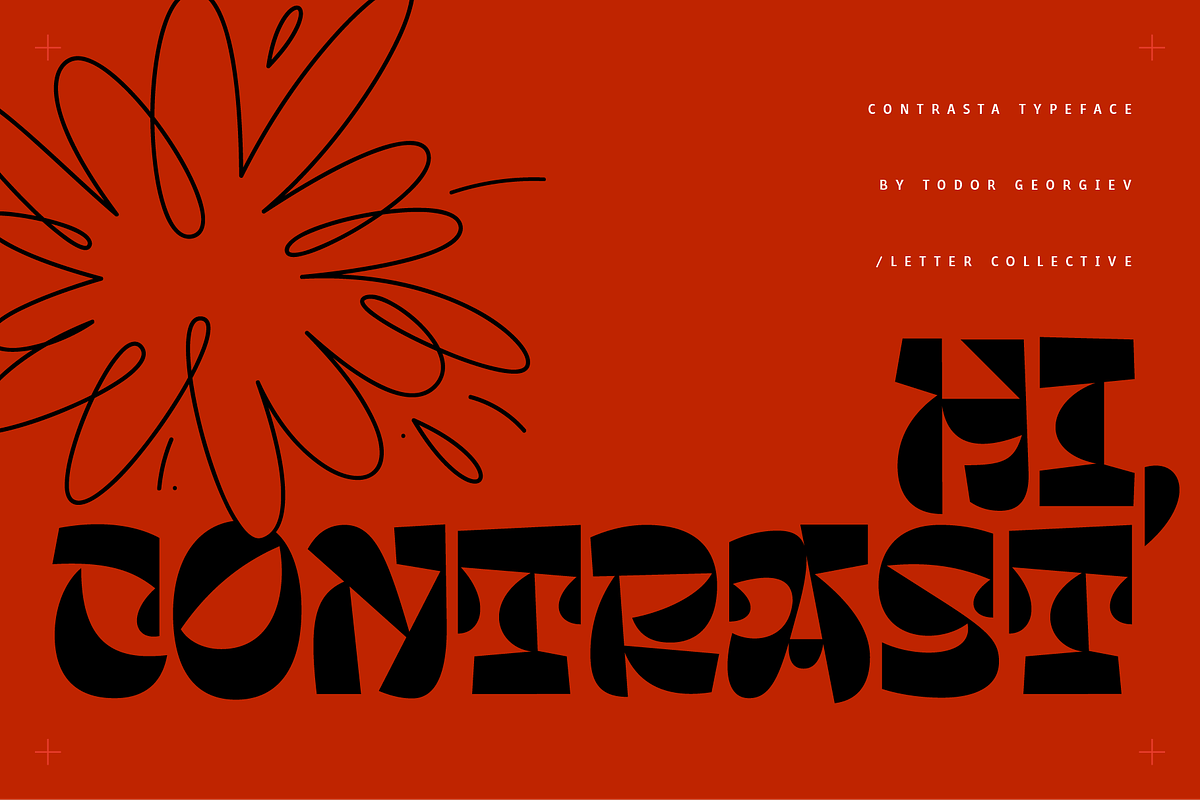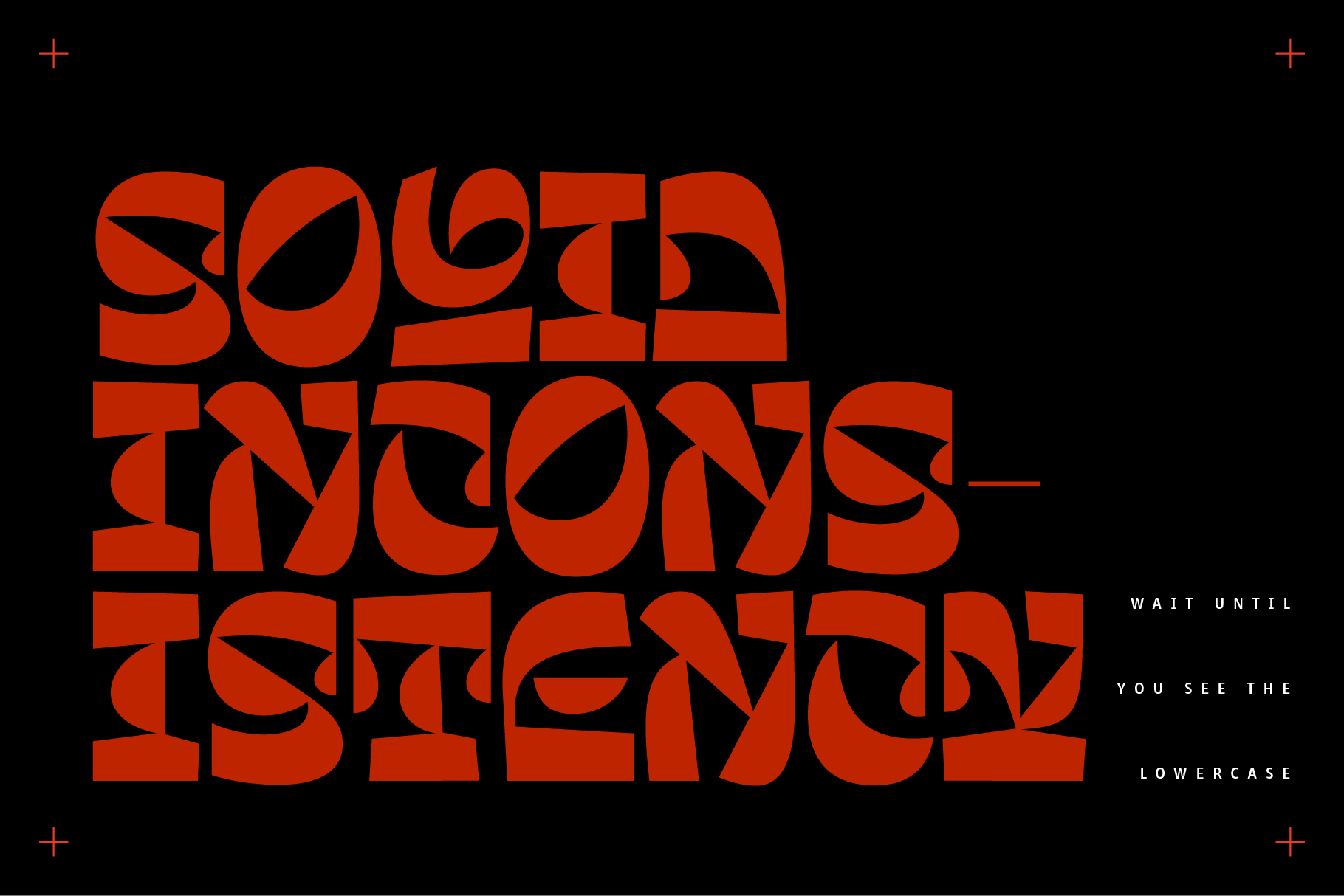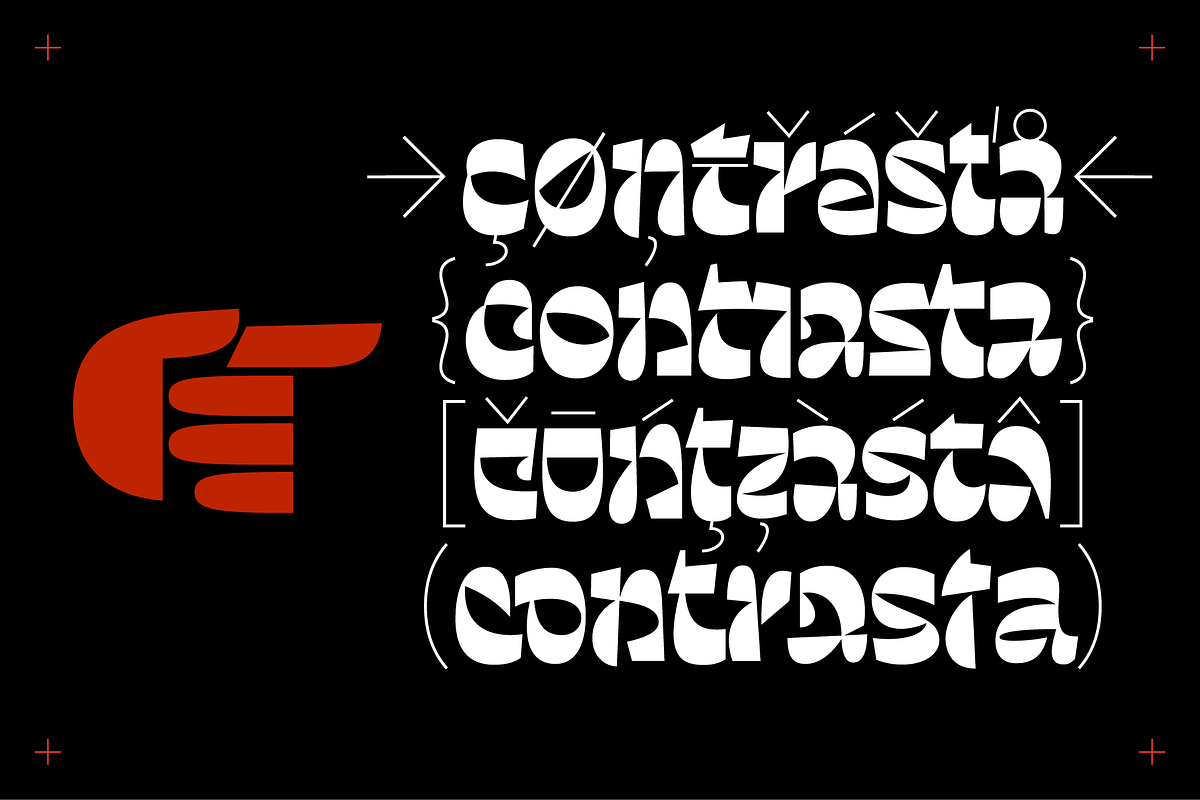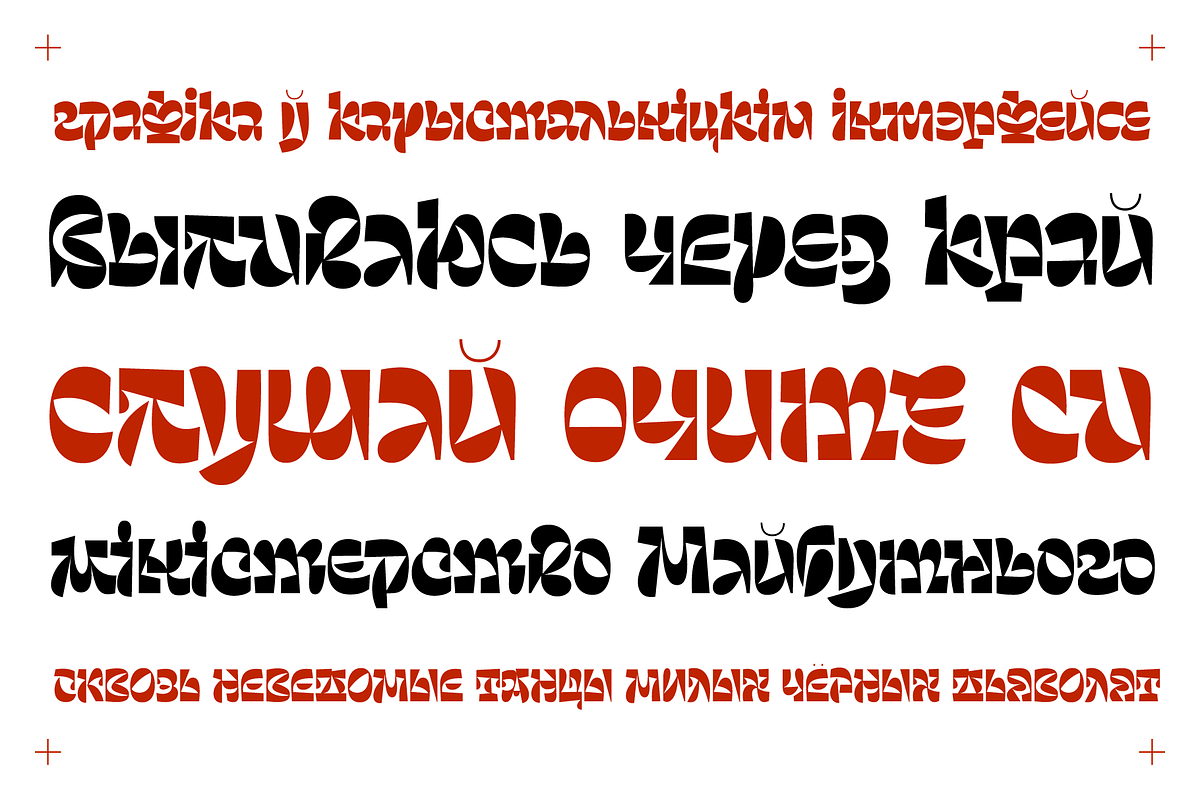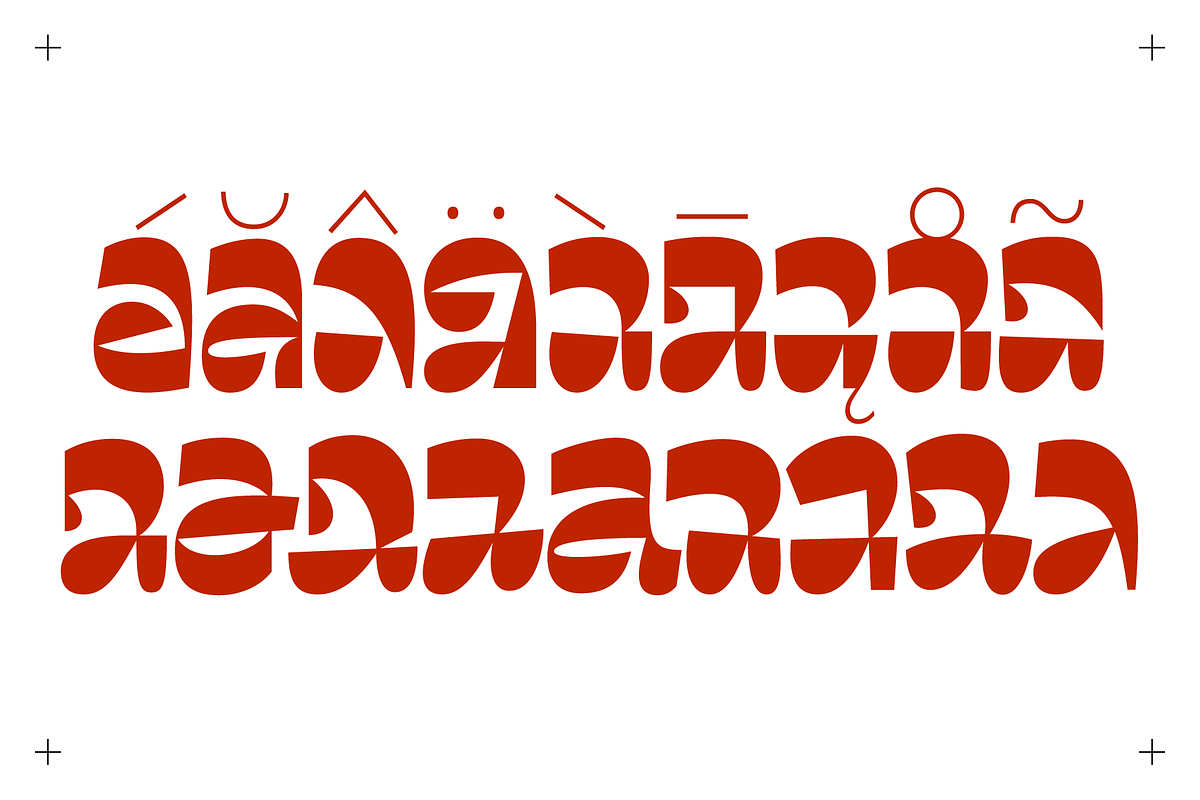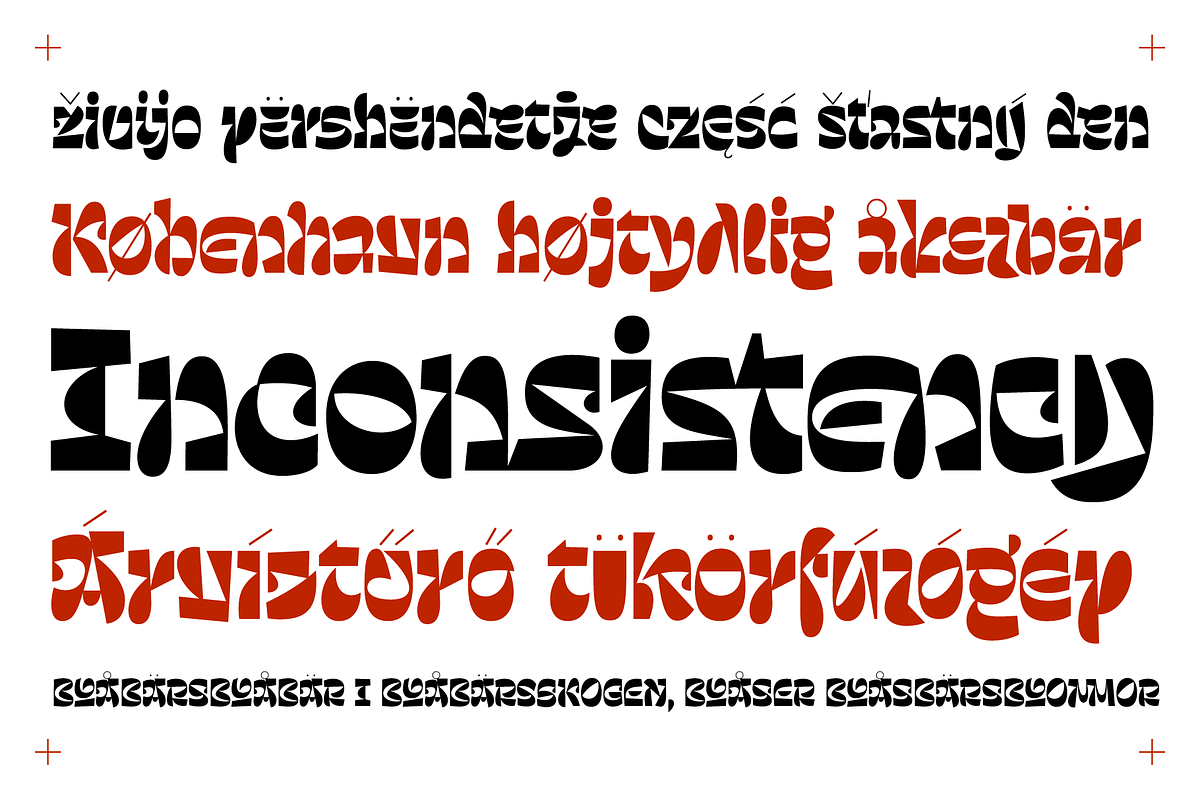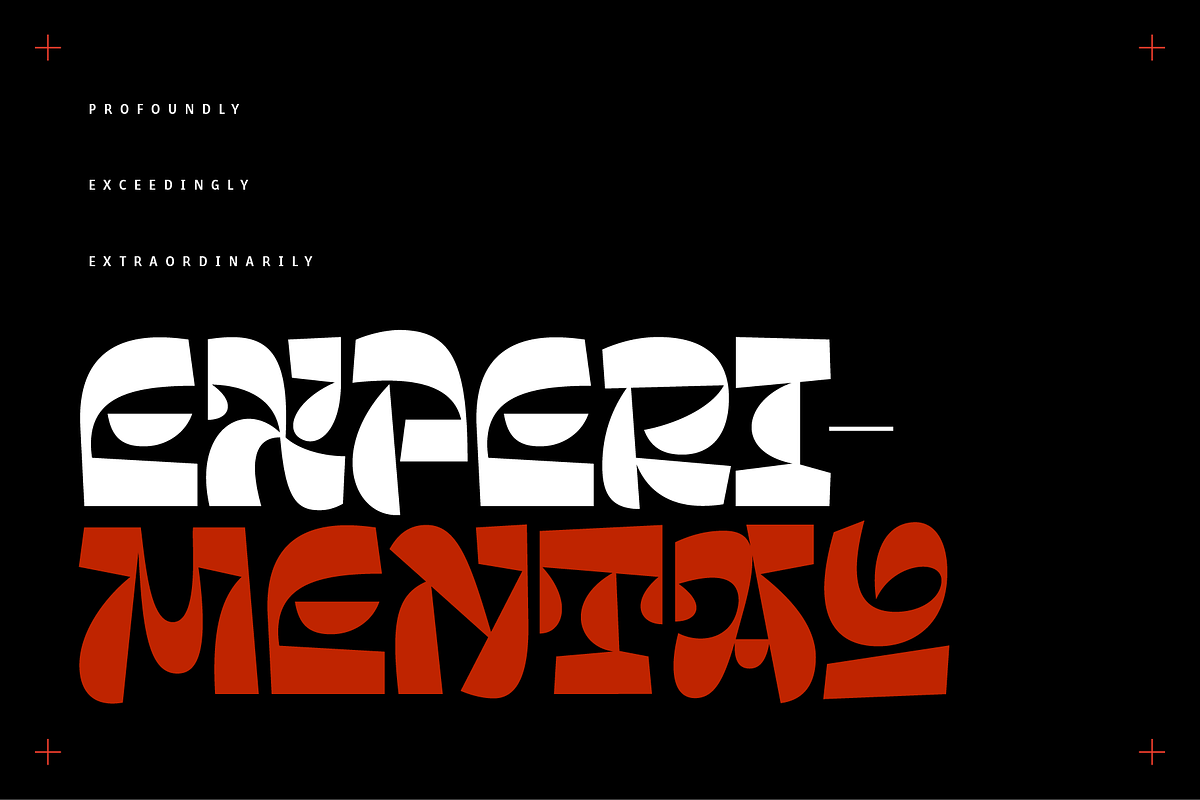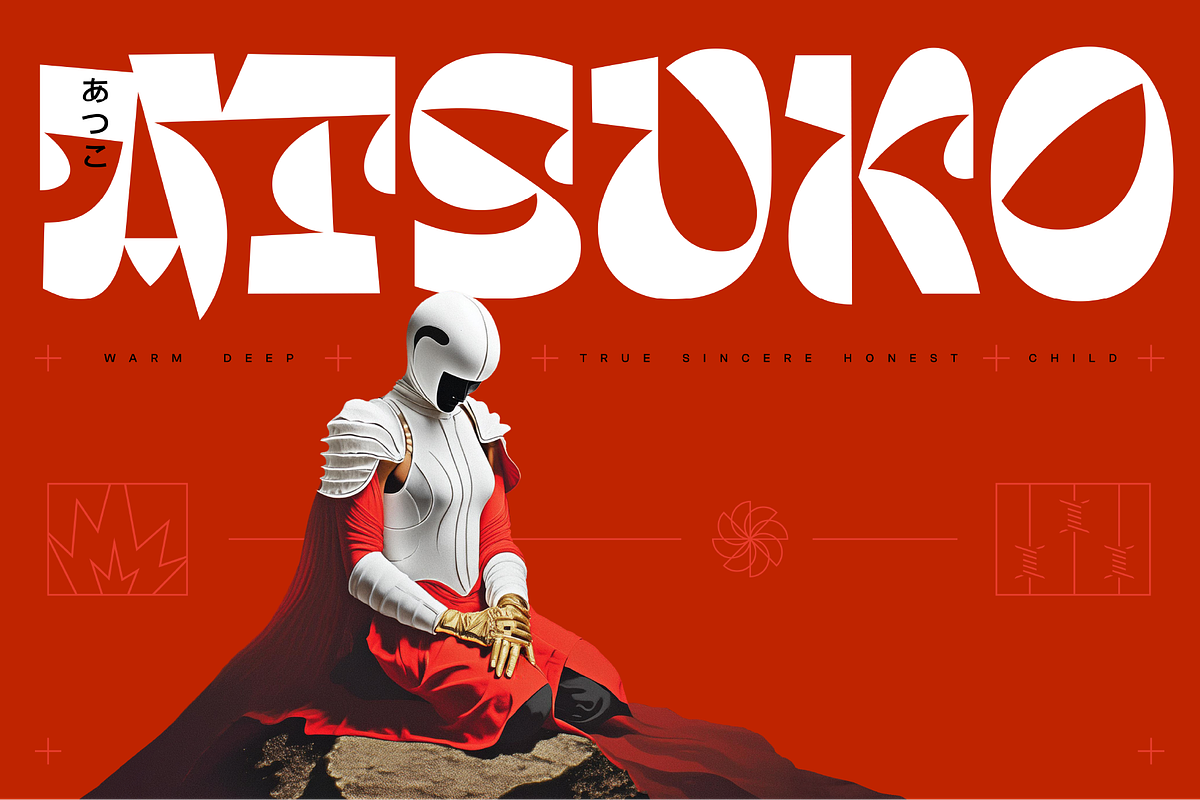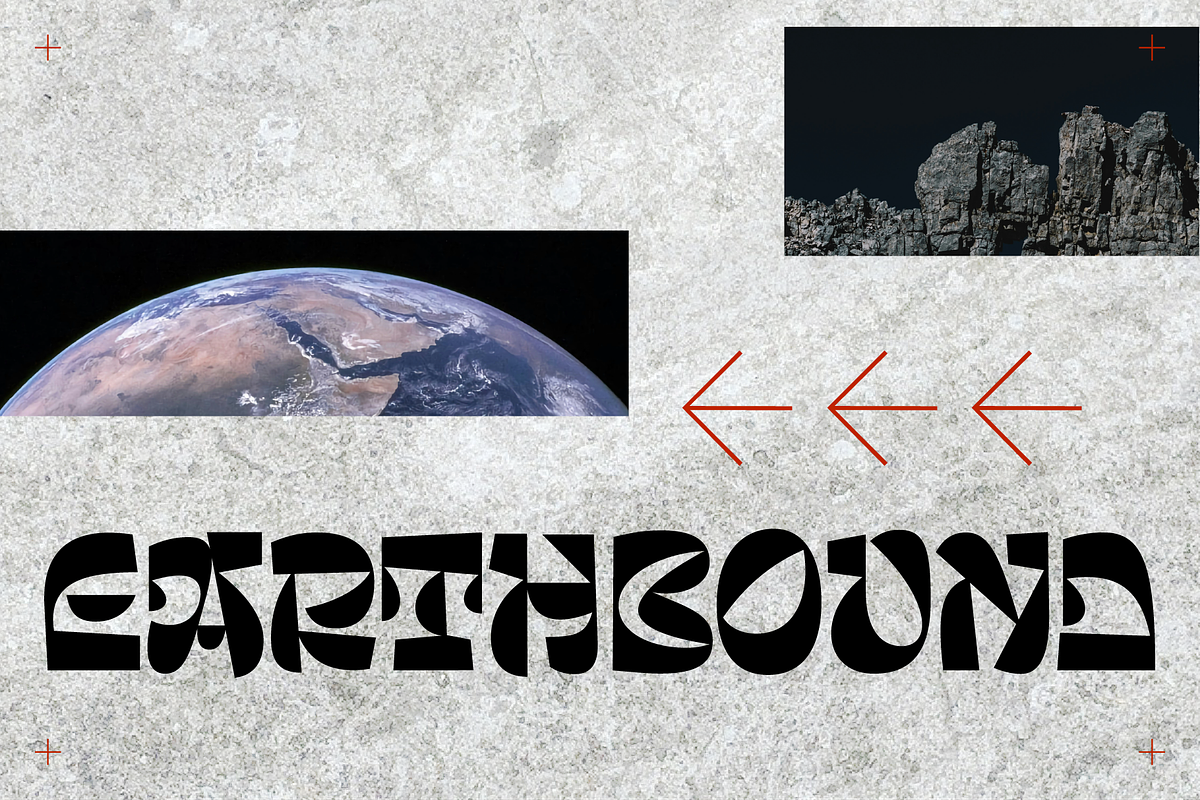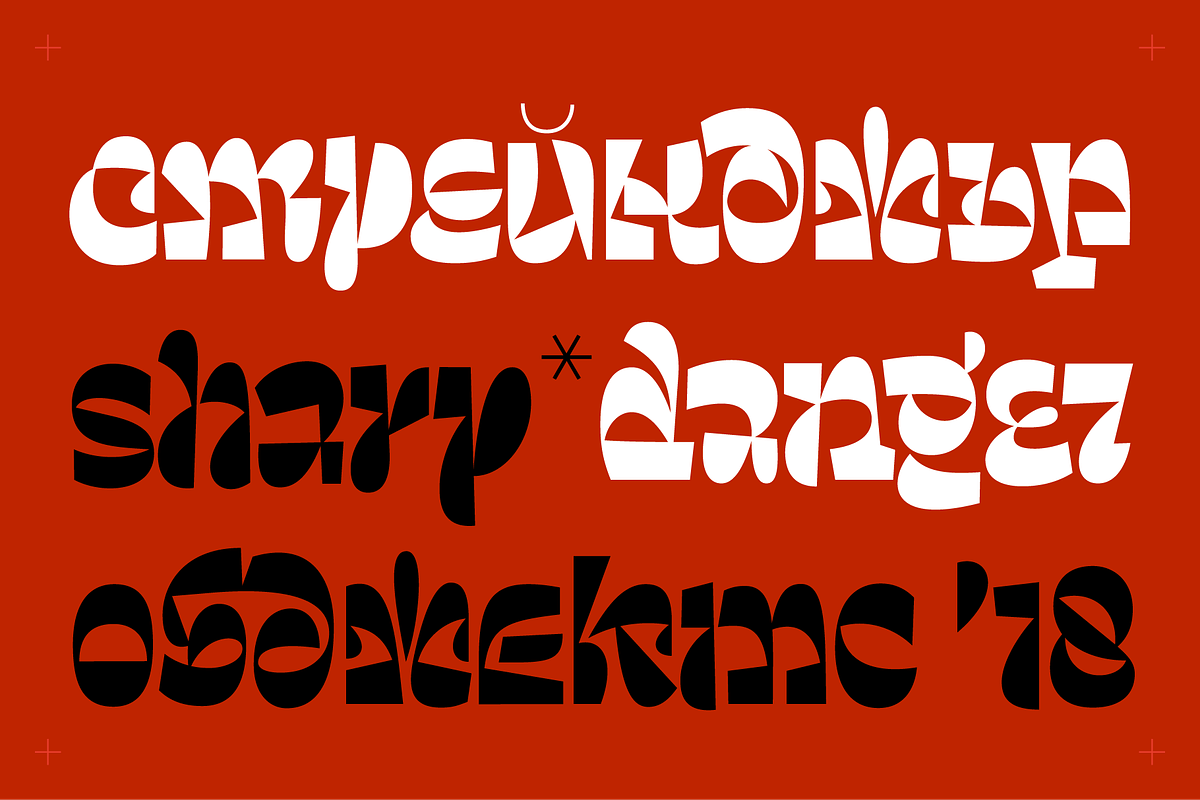
Contrasta font
A contemporary display face with a vast amount of alternates & ligatures intended to mimic custom lettering. Designed by Todor Georgiev in the period 2020–2024.
Inspired by and continuation of Tozzi’s personal lettering style which is experimental bold to say the least. Contrasta is the product of years of on-and-off experimentation, evolving far from its origins. Letters have high contrast, heavy strokes and thin accents. Contrasta pairs letters automatically as you type in order to achieve the look of modern-day lettering. The goal is for every piece of text to look custom made.
Contrasta isn’t for the faint-hearted. It’s for those who want their text to shout, not whisper. Intended for use in large sizes and short texts such as headlines, logotypes, etc. Perfect for posters, album covers, festival visuals, apparel, magazine covers – any place you want to make an impact.